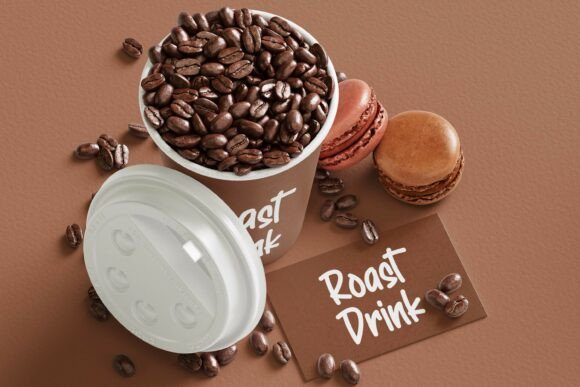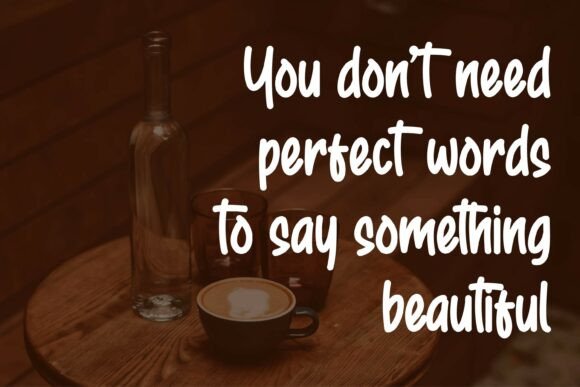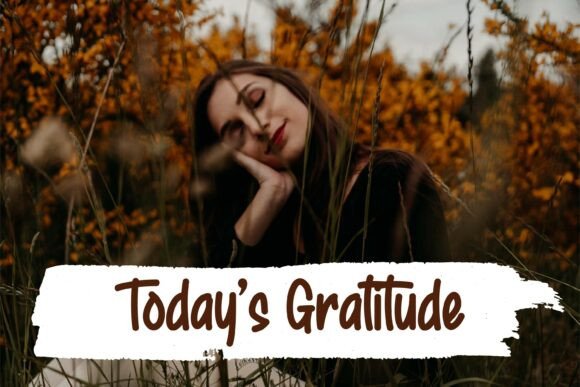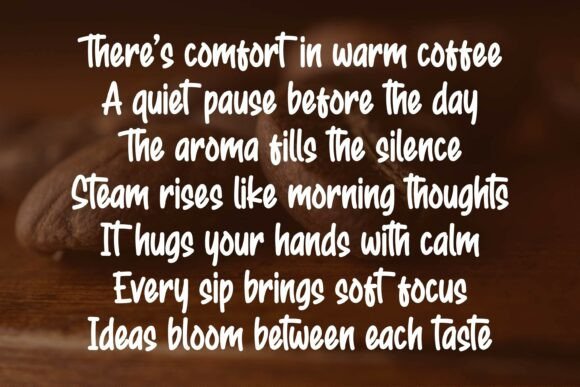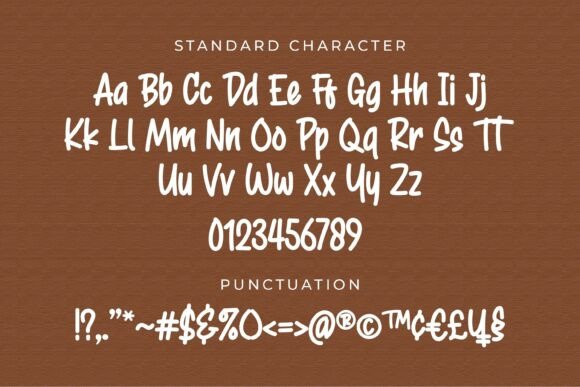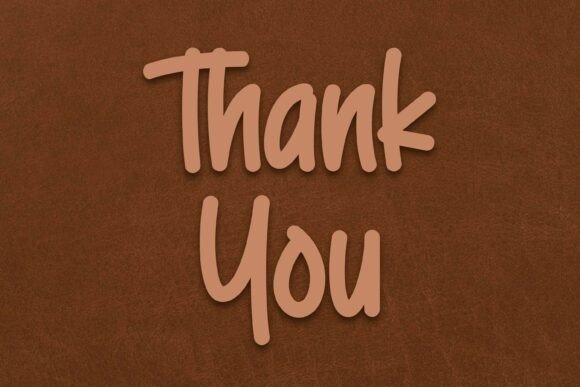
Hearthand – Casual Handwritten Font
In the world of typography, a good font can make all the difference in the success of a design project. For designers and crafters looking for a personal touch, Hearthand is a casual handwritten font that brings warmth and approachability to any design. With its rounded edges and honest strokes, Hearthand is the perfect choice for adding a genuine character to your projects.
The Characteristics of Hearthand
Hearthand is a carefully crafted font that exudes a sense of friendliness and approachability. Its rounded edges and smooth strokes give it a soft, welcoming feel that’s perfect for designs that require a personal touch. The font’s casual nature makes it ideal for a wide range of applications, from quote posters and product packaging to handwritten notes and journaling.
What Makes Hearthand Special
So, what sets Hearthand apart from other fonts? Here are a few key features that make it a standout choice for designers and crafters:
- Rounded edges: Hearthand’s rounded edges give it a soft, gentle feel that’s perfect for designs that require a personal touch.
- Honest strokes: The font’s honest strokes add a sense of authenticity and genuineness to any design.
- Casual nature: Hearthand’s casual nature makes it perfect for a wide range of applications, from formal to informal designs.
- Warm and welcoming tone: The font’s warm and welcoming tone makes it ideal for designs that require a friendly, approachable feel.
Use Cases for Hearthand
Hearthand is a versatile font that can be used in a wide range of applications. Here are some ideas to get you started:
- Quote posters: Hearthand’s casual nature and warm tone make it perfect for quote posters that require a personal touch.
- Product packaging: The font’s friendly feel makes it ideal for product packaging that requires a approachable, welcoming tone.
- Handwritten notes: Hearthand’s handwritten nature makes it perfect for handwritten notes and letters.
- Journaling: The font’s casual nature and smooth strokes make it ideal for journaling and scrapbooking.
- Organic branding: Hearthand’s genuine character and approachable tone make it perfect for organic branding and eco-friendly designs.
Why Designers and Crafters Love Hearthand
Designers and crafters love Hearthand for its unique combination of warmth, approachability, and versatility. Here are some reasons why:
- Easy to read: Hearthand’s clear and smooth strokes make it easy to read, even at small sizes.
- Highly versatile: The font’s casual nature and warm tone make it perfect for a wide range of applications.
- Unique character: Hearthand’s genuine character and approachable tone make it stand out from other fonts.
- Perfect for DIY projects: The font’s handmade nature makes it perfect for DIY projects and handmade crafts.
In conclusion, Hearthand is a casual handwritten font that’s perfect for designers and crafters looking for a personal touch. With its rounded edges, honest strokes, and warm tone, Hearthand brings a sense of genuineness and approachability to any design. Whether you’re working on a quote poster, product packaging, or a handmade craft, Hearthand is the perfect choice for adding a unique character to your project.